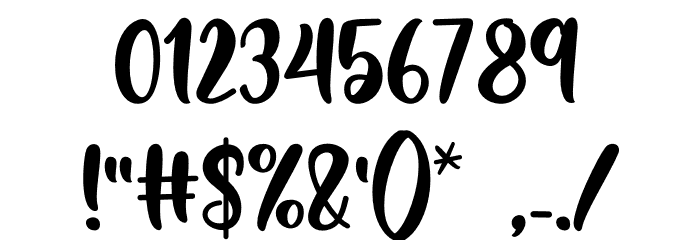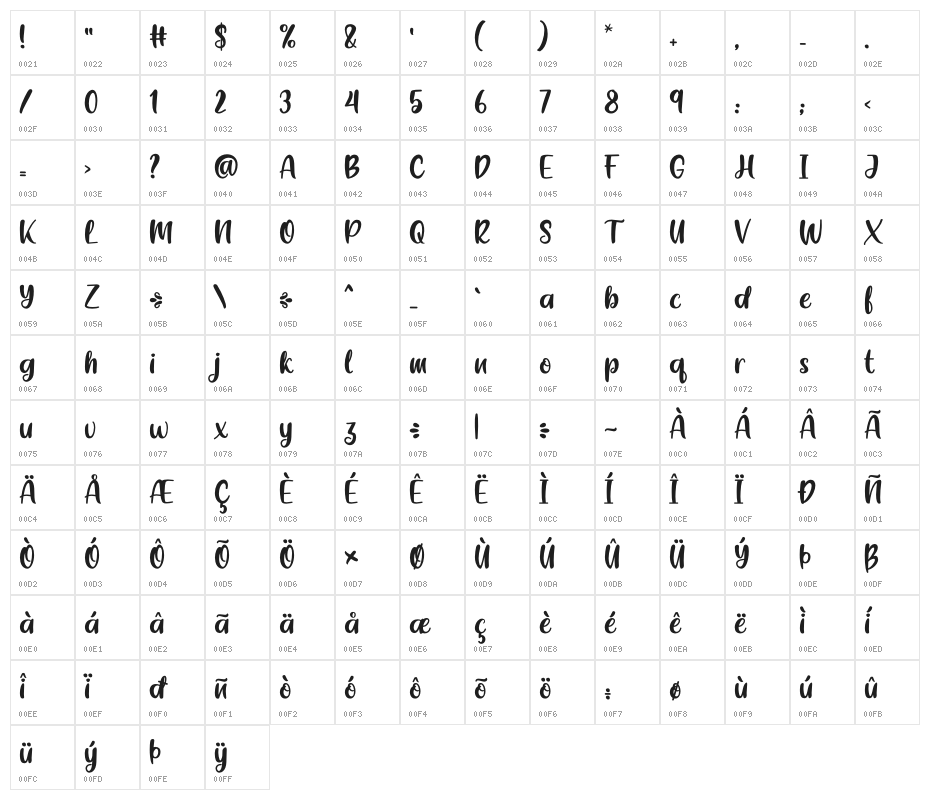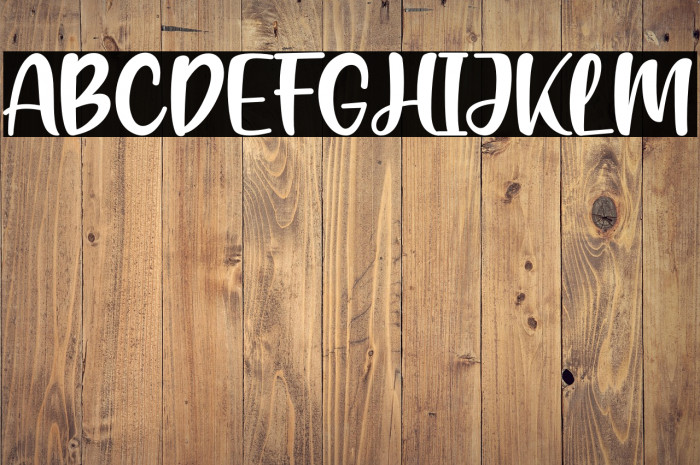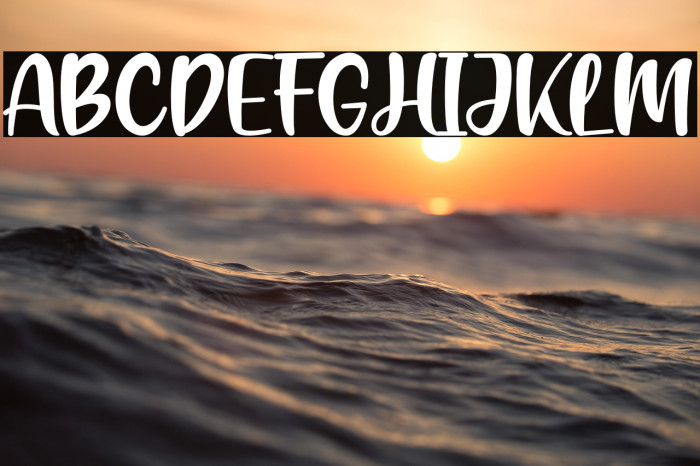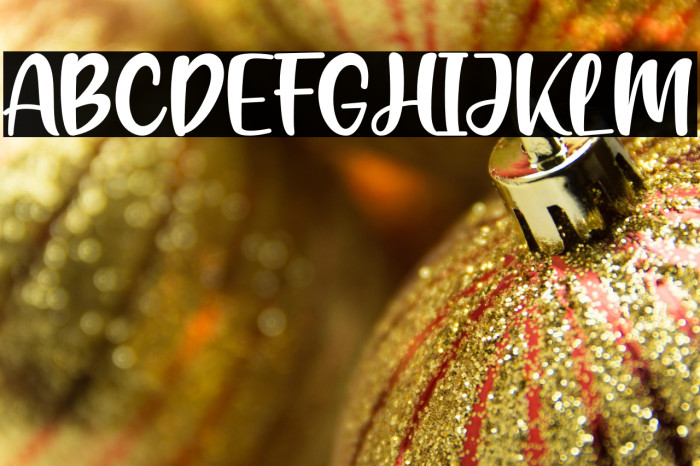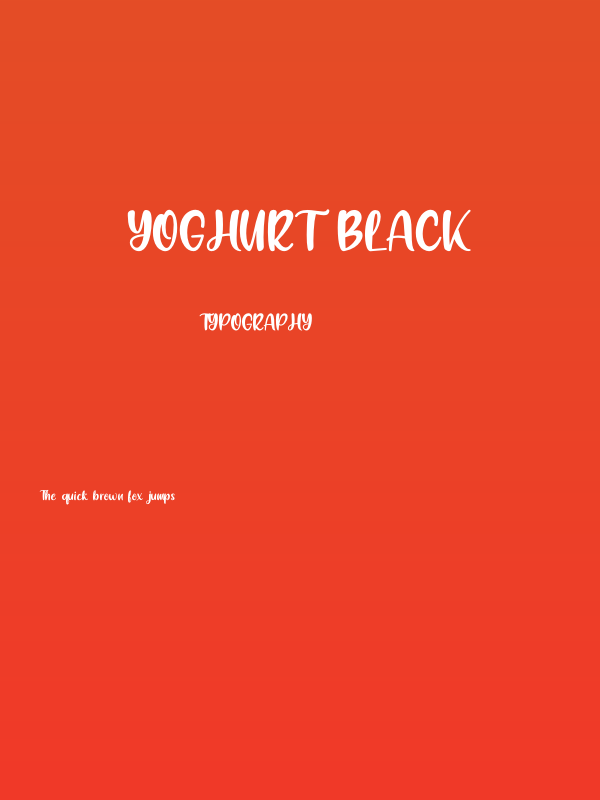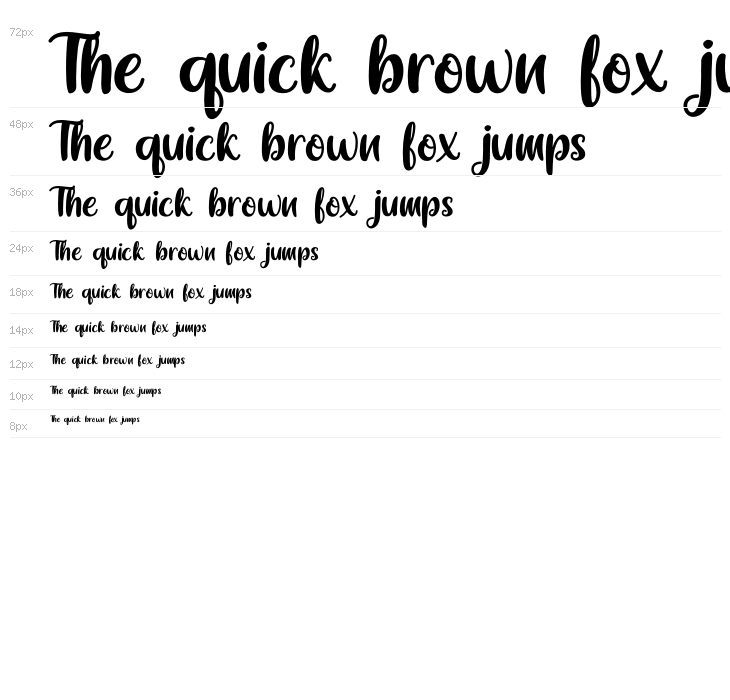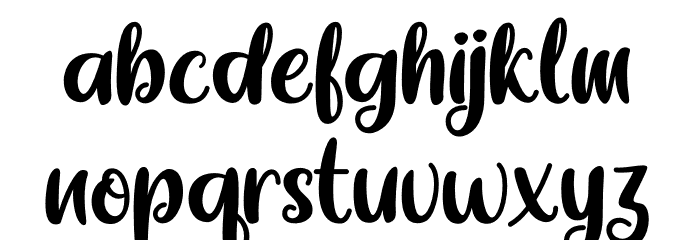
Yoghurt Black Font
Yoghurt Black Description
This font features a bold, playful script style with a hand-drawn feel. The letters are thick and rounded, giving it a friendly and approachable appearance. The uppercase letters are tall and slightly condensed, while the lowercase letters maintain a consistent flow with smooth curves and loops. The numbers and special characters follow the same style, ensuring uniformity across all glyphs. The overall design is modern yet whimsical, making it suitable for creative and informal projects.